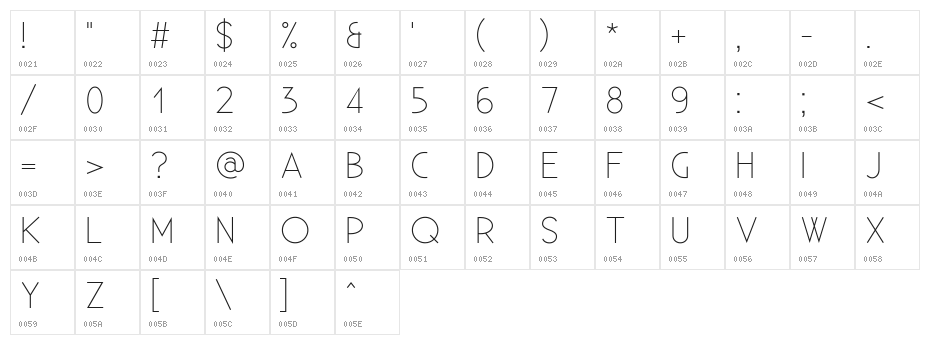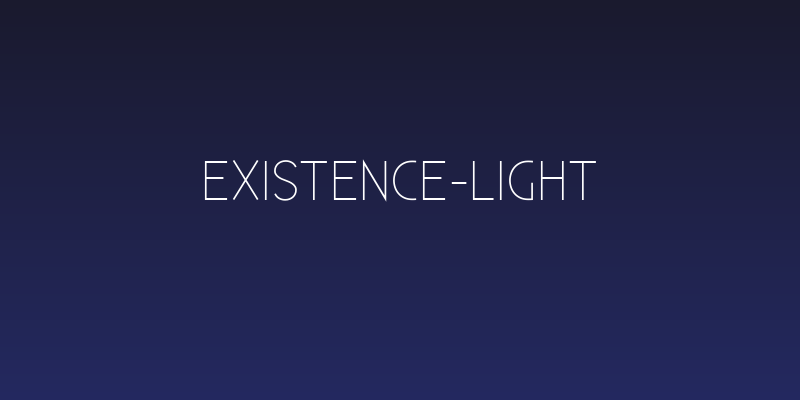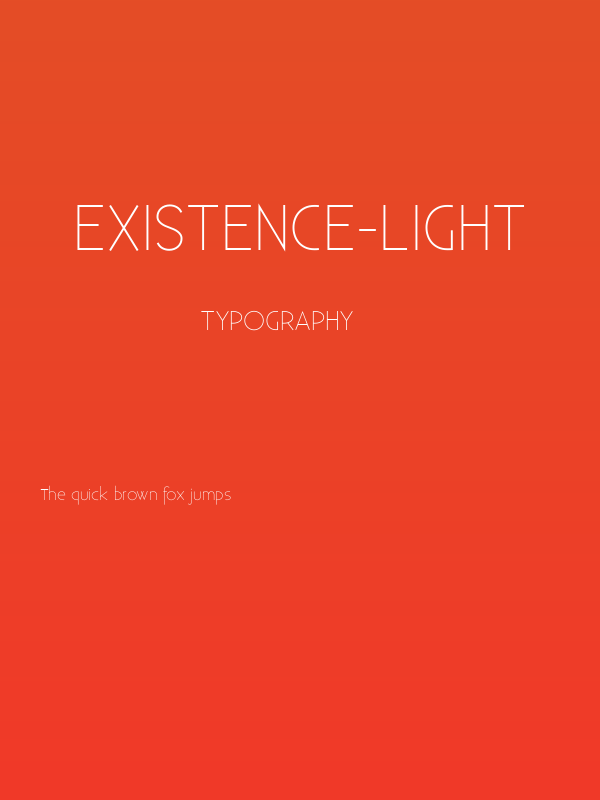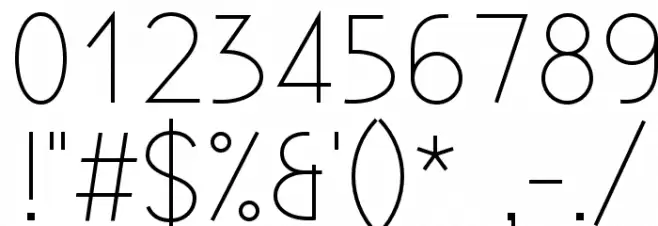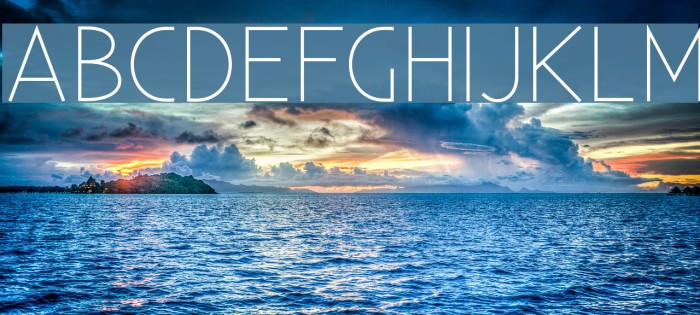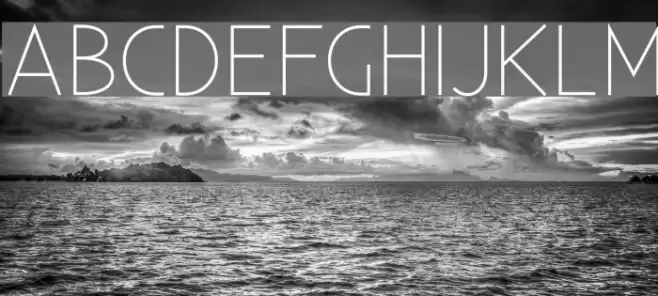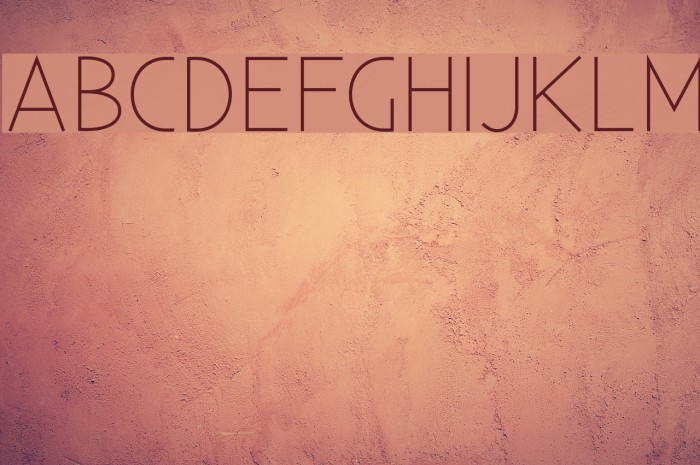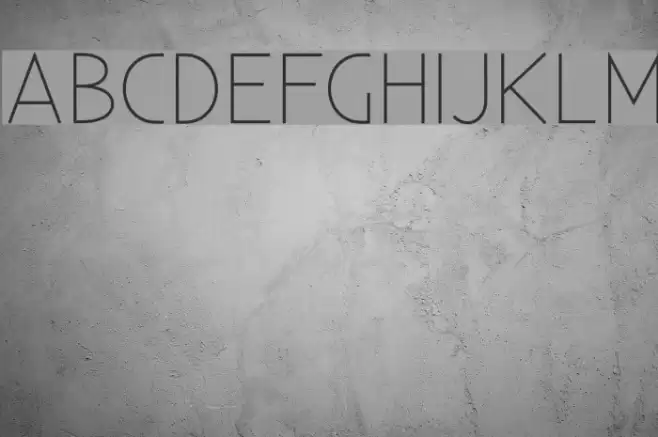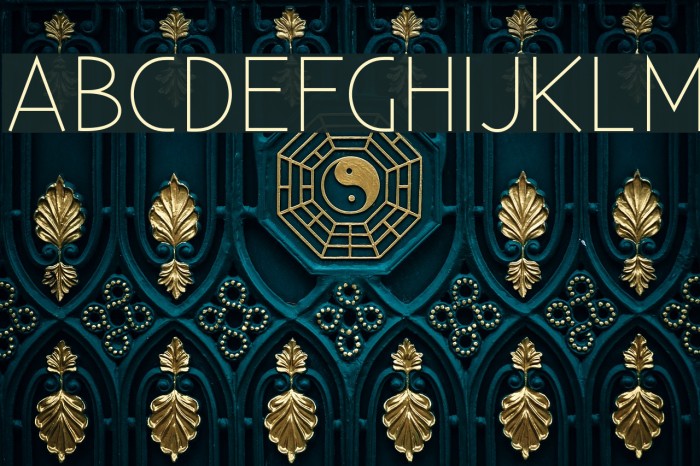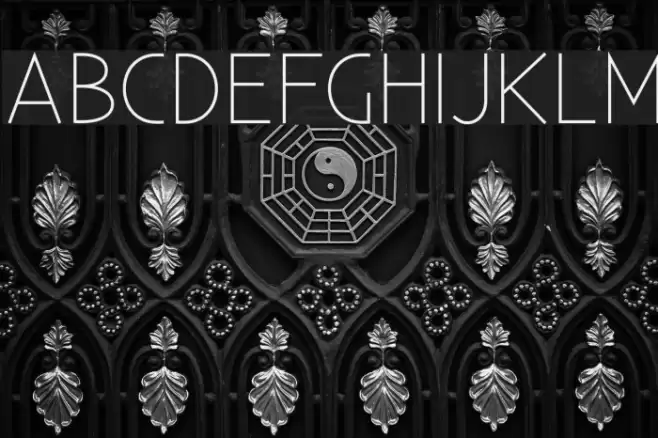
Existence-Light Font
This font exhibits a clean and minimalist design, characterized by its thin and uniform stroke width. The characters are elegantly crafted with a modern aesthetic, featuring a geometric structure that enhances readability. The uppercase and lowercase letters maintain a consistent style, with smooth curves and sharp angles that create a harmonious balance. The numerals are clear and distinct, ensuring easy legibility. Special characters are designed with the same attention to detail, providing a cohesive look across all glyphs. This font is ideal for projects that require a contemporary and sophisticated appearance.
| Use Case | Headlines, Body text, Logos |
| Proposed Projects | Ideal for branding, editorial design, web design, and minimalist posters. |